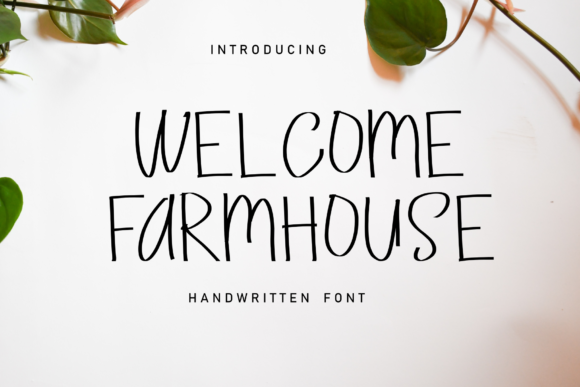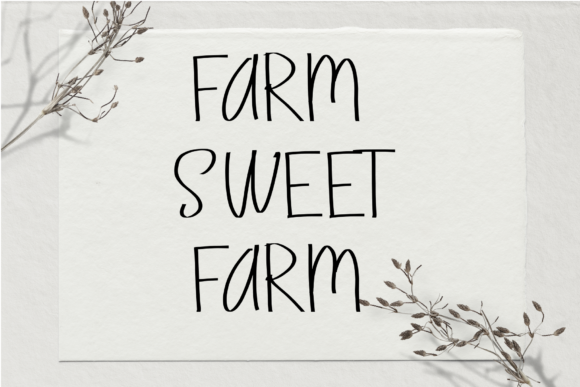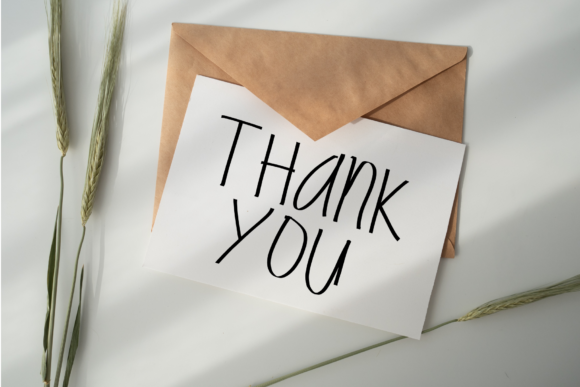
About Welcome Farmhouse Font
Farmhouse is a cute and simple handwritten font. Its natural and unique style makes it incredibly fitting to a large pool of designs. The only limit is your imagination!